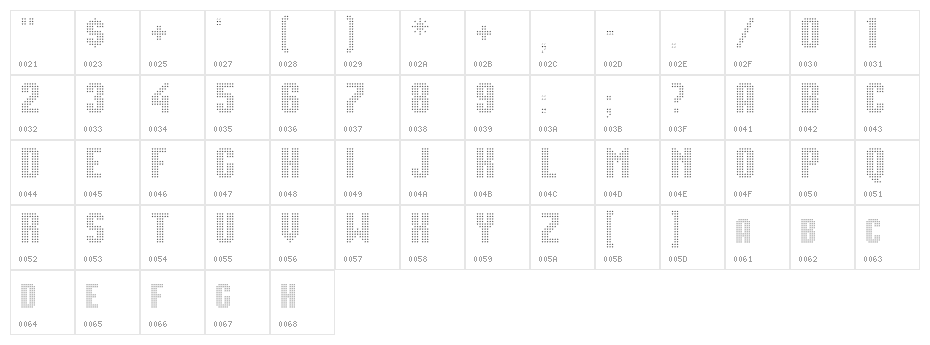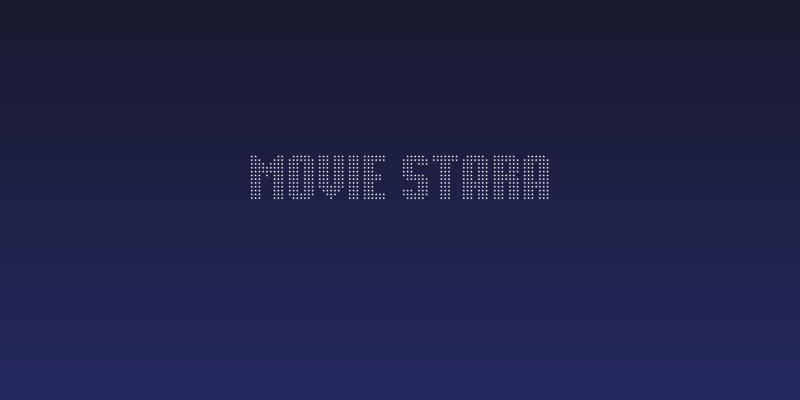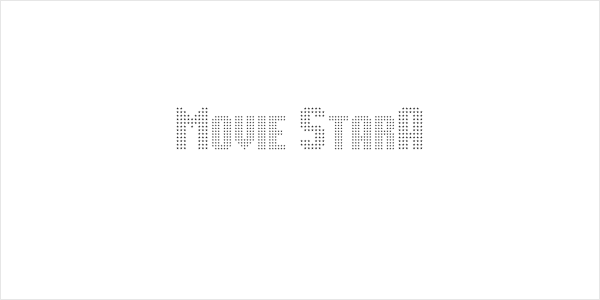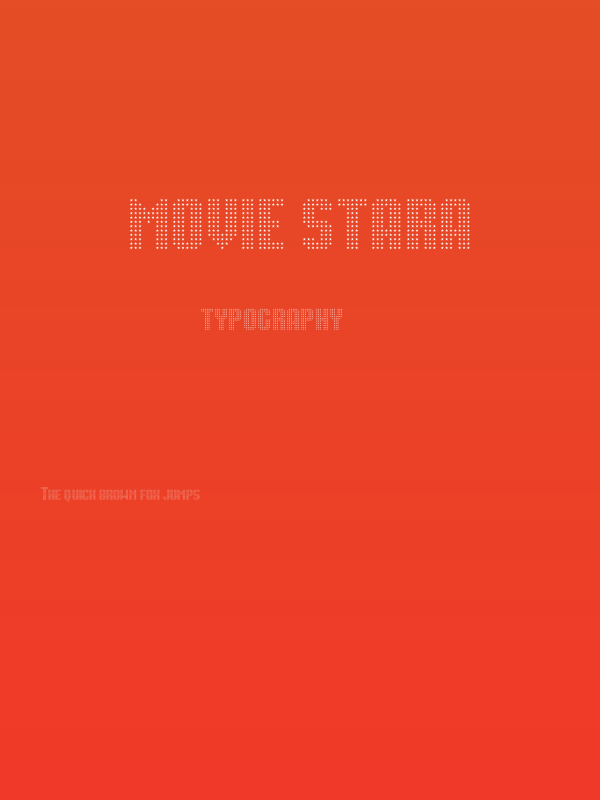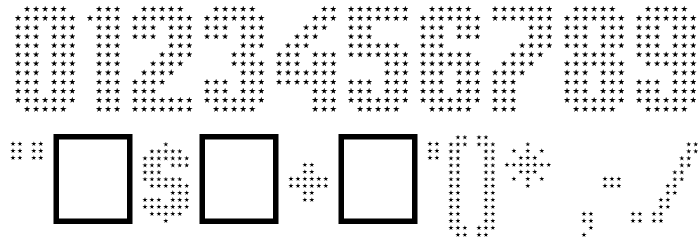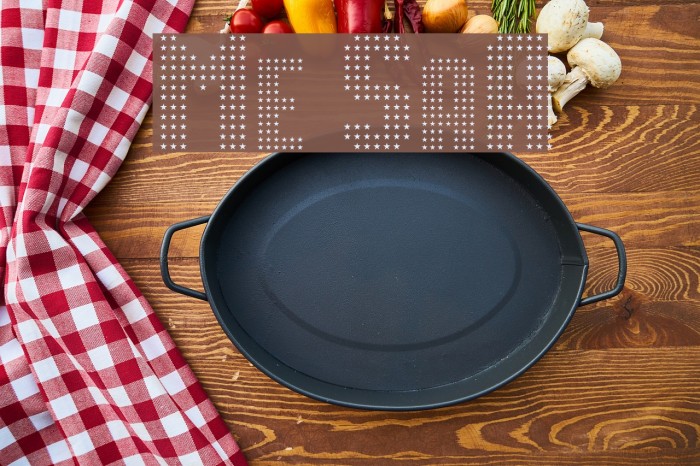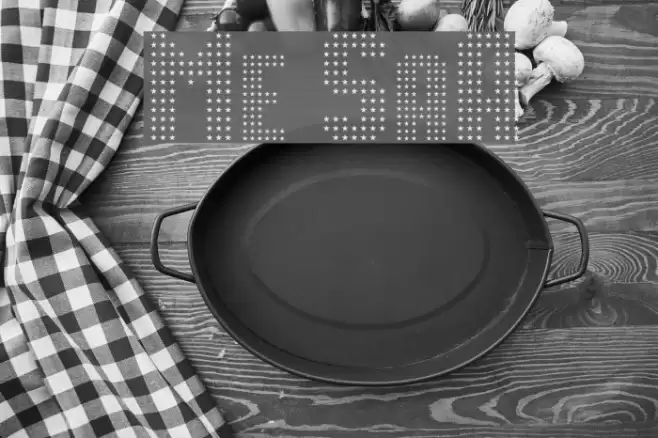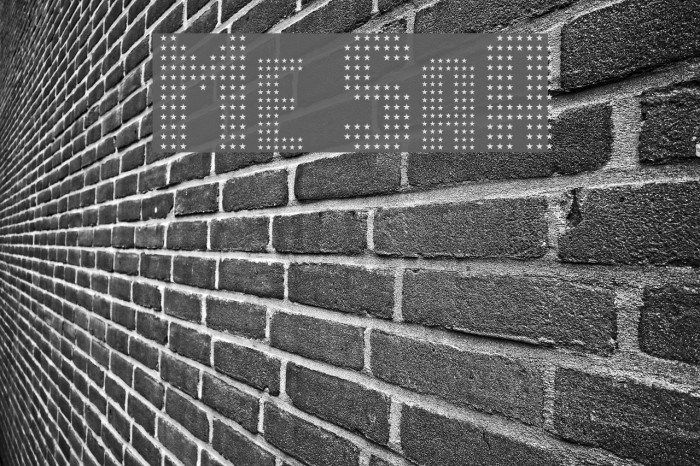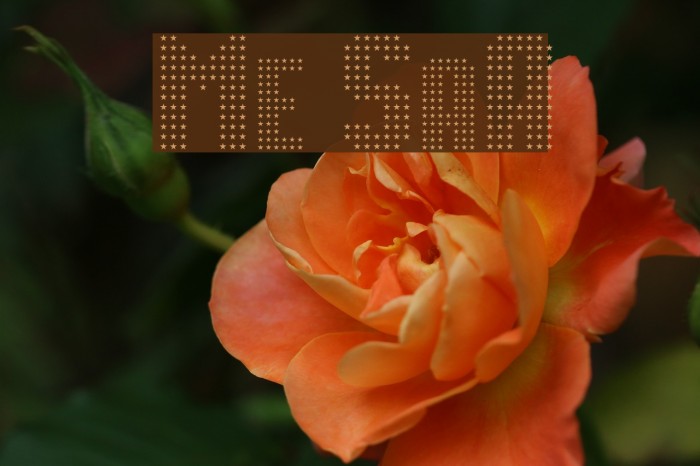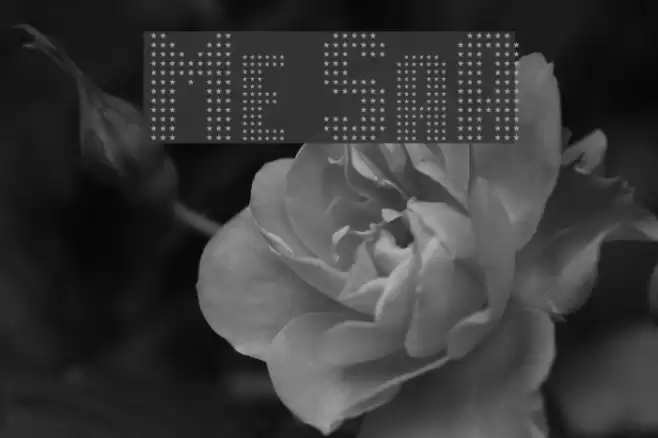
Movie StarA Font
Movie StarA Description
This font features a unique design composed entirely of small star-like dots forming each character. The uppercase and lowercase letters, as well as numbers and special characters, are constructed with precision, creating a cohesive and visually striking appearance. The dotted style gives it a playful yet structured look, making it stand out in any design project. The characters maintain a consistent size and spacing, ensuring readability while adding a decorative flair. This font is ideal for creative projects that require a distinctive and eye-catching typeface.
| Proposed Projects | Ideal for posters, event invitations, children's books, and creative branding projects. |